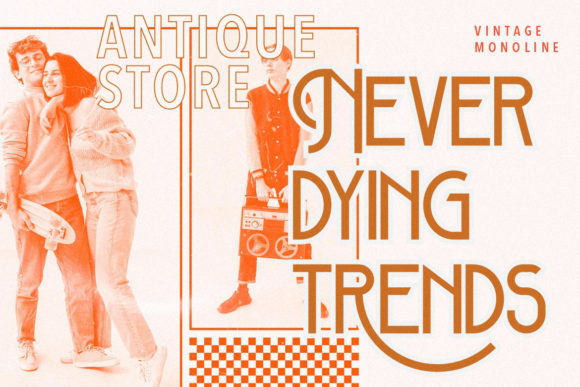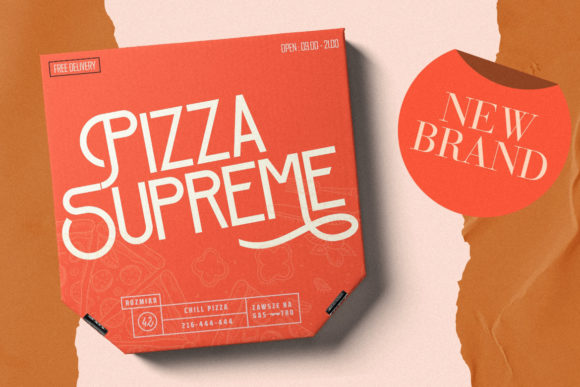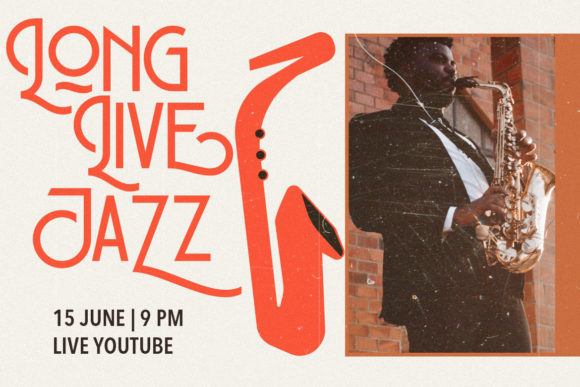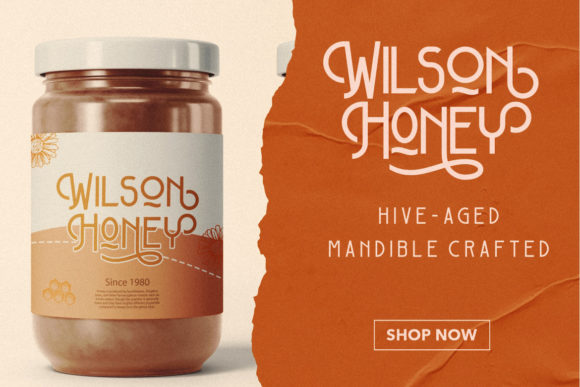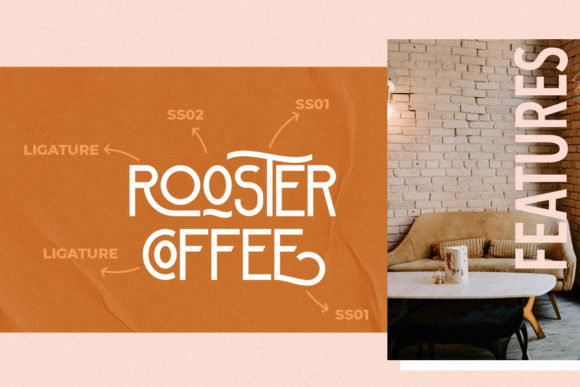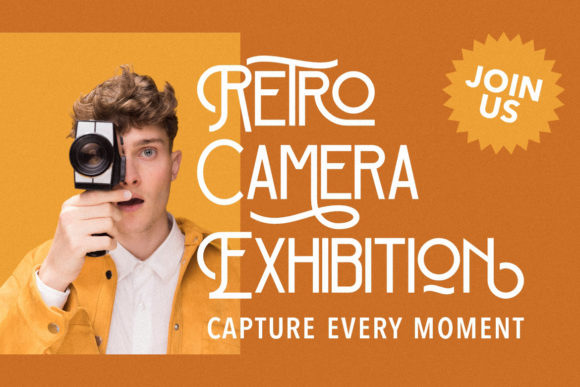
The Perfect Stage for Your Creative Vision
You know that moment when you stumble upon the perfect font, and your entire design project falls into place? It’s like finding the missing piece of a puzzle, and suddenly everything clicks. For designers, discovering the right font can be a game-changer. And that’s exactly what the Broadway Font is – a treasure trove of creative possibilities waiting to be unleashed.
Broadway Font is an organic, retro styled display font that embodies a cool and fresh vibe. With its unique blend of style and versatility, this font is designed to seamlessly transition between formal and informal creations. Whether you’re working on a logo, poster, or social media campaign, Broadway Font is the perfect partner in crime. Its endless variations will keep you inspired and motivated to push the boundaries of your creativity.
Broadway Font Key Features
- Unique Characteristics: Broadway Font features a unique blend of Art Deco and vintage styles, with intricate details and ornate flourishes that evoke the glamour of the Broadway stage.
- Font Style: Broadway Font is available in both regular and bold styles, allowing designers to create a range of visual effects and add depth to their designs.
Broadway Font Review
Overall, I think the Broadway Font is a solid choice for projects that require a classic, theatrical feel. ✨ It’s great for creating a sense of nostalgia and glamour, which can be perfect for design projects related to theater, music, or old-school Hollywood.
Here are some of the things that work well in the Broadway Font:
- ✨ Elegant and refined appearance: The font has a sophisticated feel to it, making it perfect for high-end projects.
- ✨ Versatility: The font can be used for a variety of purposes, from title cards to body text, and still maintain its charm.
- ✨ Great for creating visual hierarchy: The font’s classic design makes it easy to create a clear visual hierarchy, which is essential for effective communication.
- ⚠️ Limited font sizes: The font may not scale well to very small or very large font sizes, which can make it difficult to read in certain contexts.
- ⚠️ Limited language support: The font may not support all languages or character sets, which can be a problem for international projects.
- ⚠️ May not be suitable for modern designs: The font’s classic design may not be the best choice for modern or minimalist designs, where a more contemporary feel is desired.
Overall, the Broadway Font is a great choice for projects that require a classic, theatrical feel. However, it’s essential to consider its limitations and whether it’s the right fit for your specific project.
Tips for Getting the Most Out of Broadway Font
Here are some tips for getting the most out of Broadway Font:
- Use Broadway Font for titles and headings to add a touch of elegance.
- Pair Broadway Font with other fonts to create a unique and eye-catching design.
Broadway Font is commonly used in:
- Theater and performance design
- Formal event invitations and programs
Playfair Display is a luxurious, high-end serif font ideal for creating a sense of elegance and sophistication. It is often used in high-end branding, luxury goods, and fine art. When to use: luxury branding, invitations, and special occasions. It compares to Broadway Font in that it has a similar opulent feel, but with more refined lines and a more elegant appearance.
The Broadway Font is available in OpenType (OTF) and TrueType (TTF) formats, with a character set that includes Latin, Cyrillic, and Greek scripts. The font supports various languages, including English, Spanish, French, and many others. It has a large x-height and a relatively narrow width, making it suitable for digital signage and other applications where space is limited.